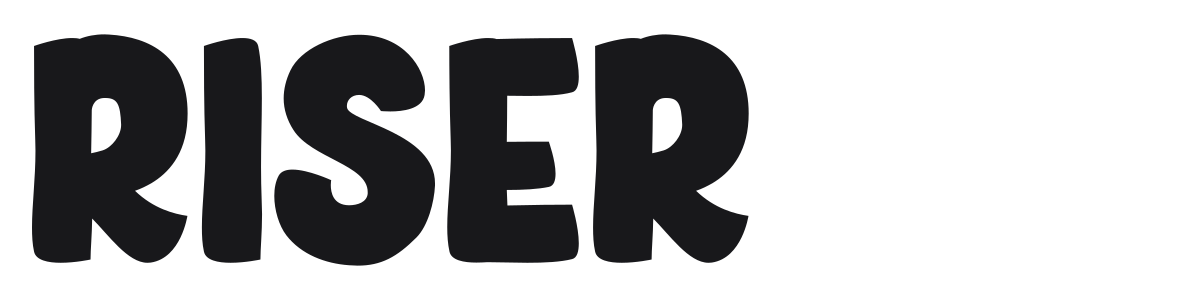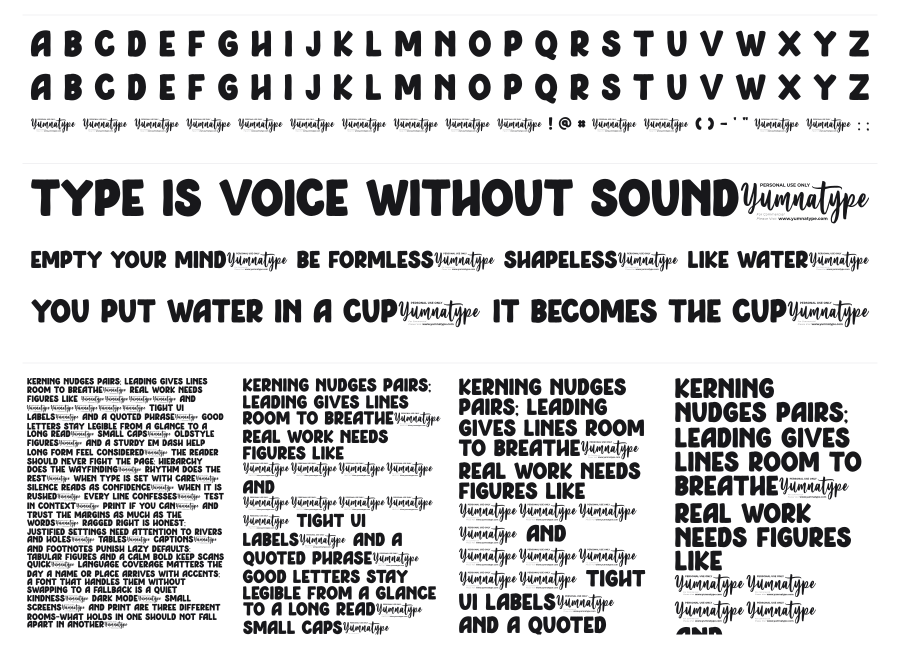
Riser
Riser is a heavy rounded sans with a bold, cartoon-inflated character built from thick strokes and soft terminals. Every letter feels full and bouncy, landing somewhere between a comic book title and a modern food brand. It carries a lot of personality at large sizes without tipping into novelty chaos.